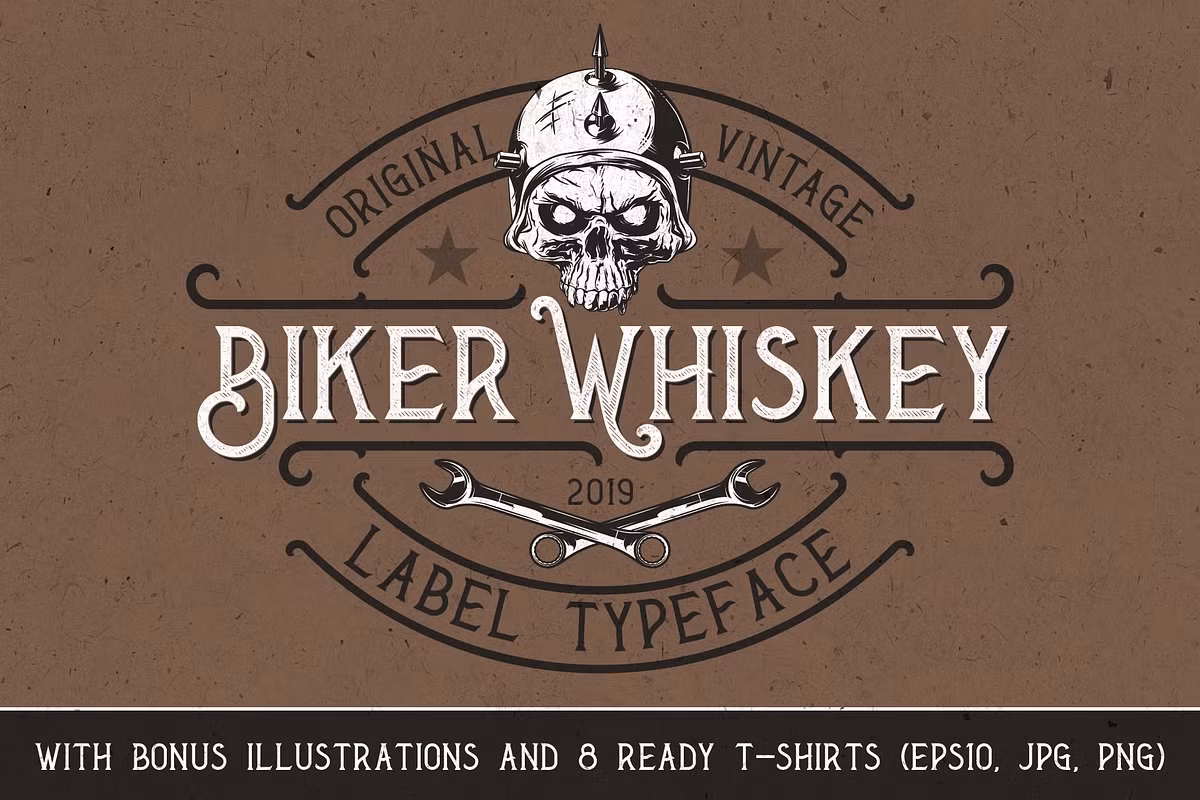
This rugged font is perfect for motorcycle club branding, distillery labels, bar signage, tattoo parlor graphics, rock band merchandise, biker rally posters, whiskey packaging, and masculine lifestyle branding. Its tough character makes it ideal for projects requiring authentic outlaw spirit and rebellious motorcycle culture aesthetics.
Biker Whiskey Font is exciting because it captures the raw essence of motorcycle brotherhood and whiskey craftsmanship with letterforms that appear weathered by road dust and aged like fine bourbon. The font features distressed edges, bold strokes, and authentic wear patterns that mirror the lived-in quality of vintage leather jackets and well-used Harley Davidson motorcycles. Its rebellious personality instantly communicates freedom, independence, and uncompromising authenticity.
The Biker Whiskey Font family typically includes regular and bold weights, along with distressed variations and decorative elements like flames, skulls, and motorcycle-themed ornaments. Many versions feature alternate characters with varying degrees of weathering and special symbols that enhance the outlaw aesthetic.
Whether you're designing for motorcycle events, craft distilleries, or rebellious lifestyle brands, Biker Whiskey Font Free Download delivers genuine outlaw authenticity with professional craftsmanship. This typeface transforms ordinary text into powerful statements that resonate with freedom-loving spirits and whiskey connoisseurs who appreciate the brotherhood of the open road. Its distinctive character adds immediate credibility to brands that celebrate independence, craftsmanship, and the timeless appeal of motorcycle culture combined with premium spirits tradition.